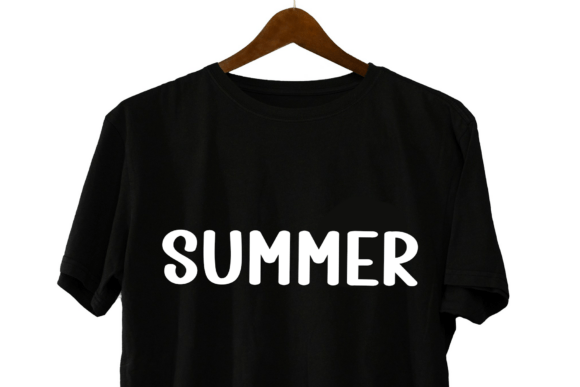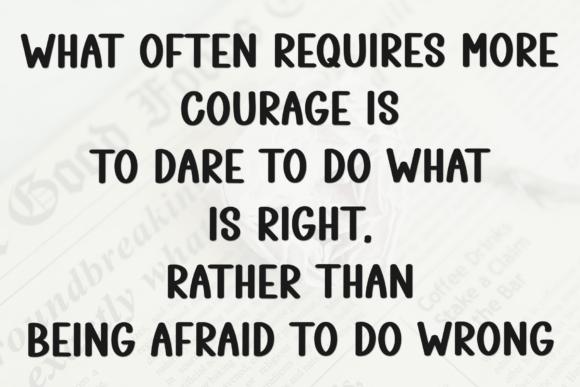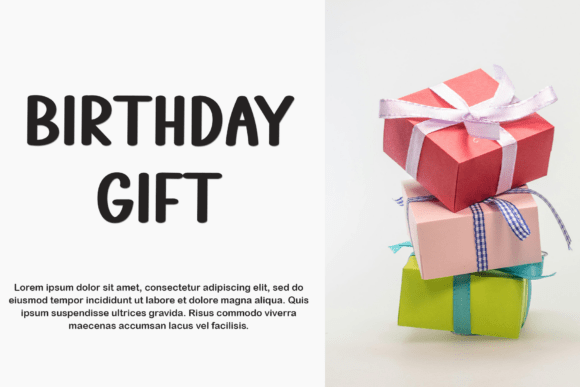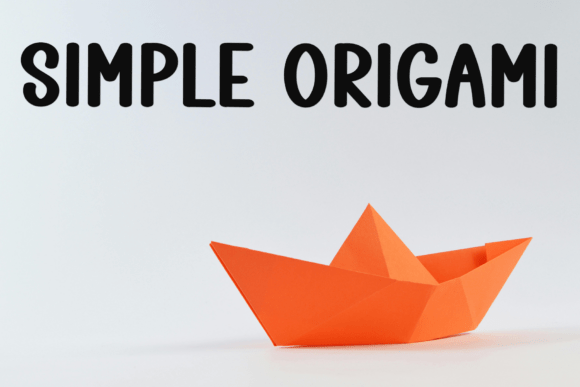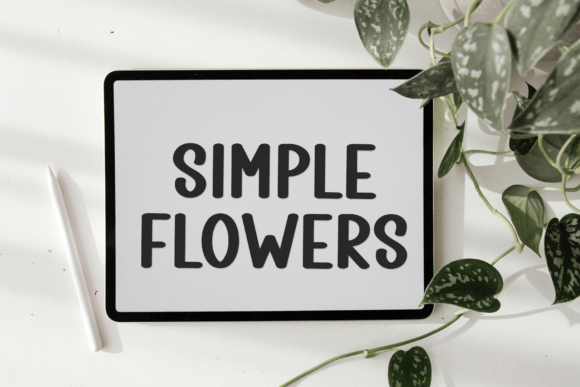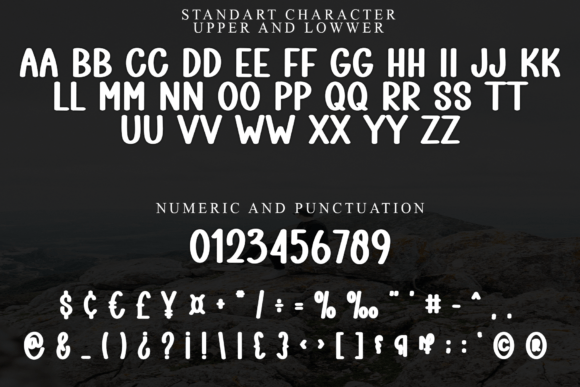
Introducing Back School Font: The Perfect Choice for Educational Designs
Are you looking for a font that captures the excitement and playfulness of heading back to school? Look no further than Back School Font, a bold and fun display font designed specifically for educational designs. In this article, we’ll explore the features and benefits of Back School Font, and how it can elevate your school projects, kids’ designs, posters, and educational content.
What is Back School Font?
Back School Font is a bold, playful display font that embodies the spirit of heading back to the classroom. With its chunky, fun letters and friendly vibe, this font is perfect for designers and crafters who want to create engaging and eye-catching educational materials. Whether you’re working on a school project, creating a poster, or designing educational content, Back School Font is the perfect choice.
Key Features of Back School Font
- Bold and Playful: Back School Font features chunky, fun letters that are sure to grab attention.
- Friendly Vibe: The font has a warm and inviting feel, making it perfect for educational designs.
- Highly Versatile: Back School Font can be used for a wide range of projects, from school projects and kids’ designs to posters and educational content.
- Easy to Read: The font is clear and easy to read, making it perfect for headings and titles.
Benefits of Using Back School Font
So why choose Back School Font for your educational designs? Here are just a few benefits:
- Adds a Touch of Fun: Back School Font adds a playful touch to your designs, making them more engaging and fun for kids.
- Perfect for Educational Content: The font is specifically designed for educational content, making it a great choice for teachers, educators, and designers.
- Great for Kids’ Designs: The font’s playful and friendly vibe makes it perfect for kids’ designs, from birthday party invitations to educational materials.
How to Use Back School Font
Using Back School Font is easy. Here are a few tips to get you started:
- Pair it with Other Fonts: Back School Font pairs well with other fonts, such as sans-serif fonts for body text.
- Use it for Headings: The font is perfect for headings and titles, adding a bold and playful touch to your designs.
- Experiment with Colors: Back School Font looks great in a variety of colors, from bright and bold to pastel and soft.
Design Ideas Using Back School Font
- School Project Posters: Use Back School Font to create eye-catching posters for school projects.
- Kids’ Party Invitations: The font is perfect for kids’ party invitations, adding a playful touch to your designs.
- Educational Materials: Use Back School Font to create engaging and educational materials for kids.
- Classroom Decor: The font can be used to create fun and educational classroom decor, from bulletin board headers to classroom labels.
Back School Font is a bold, playful display font that’s perfect for educational designs. With its chunky, fun letters and friendly vibe, it’s great for school projects, kids’ designs, posters, and educational content. Whether you’re a designer, teacher, or crafter, Back School Font is a great addition to your font collection.